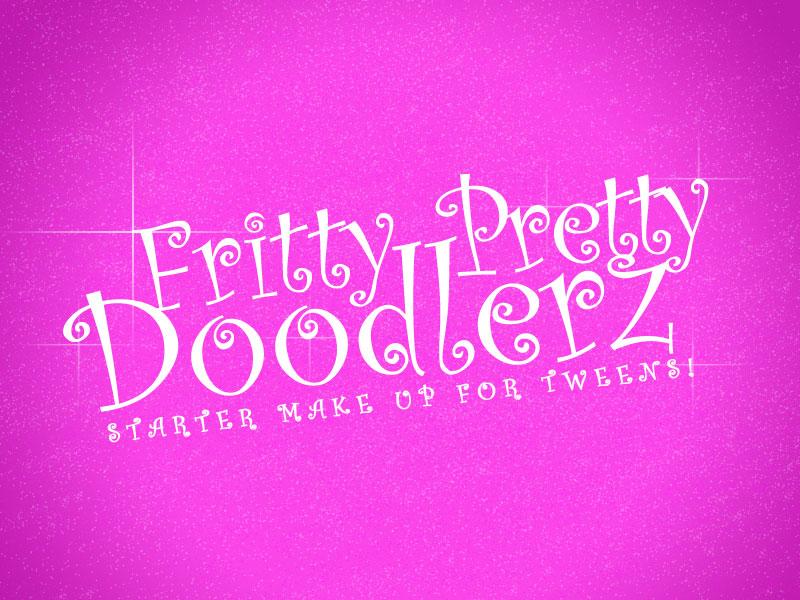
Curlz MT Monotype Font was designed by Steve Matteson and Carl Crossgrove in 1995. For a unique, festive touch, add a little Curlz to posters, flyers, invitations, menus and tee shirts. You can use the Curlz MT to create interesting designs, covers, shop and store name and logos.
The font Curlz MT is also perfect for branding projects, Homeware Designs, Product packaging – or simply as a stylish text overlay to any background image.
- Designer: Carl Crossgrove, Steve Matteson